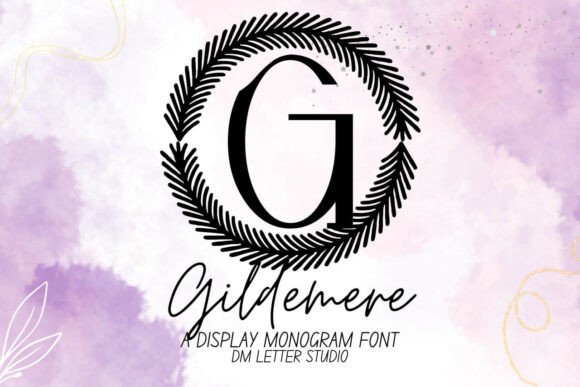
Meet Gildemere, the Monogram Font that Elevates Initials to Luxurious Emblems
Are you a designer or crafter looking for a font that can add a touch of classic luxury to your projects? Look no further than Gildemere, the monogram font that turns simple initials into polished, boutique-ready emblems. With its smooth and confident strokes, generous counters, and elegant proportions, Gildemere is the perfect choice for creating stunning wedding suites, boutique logos, keepsake gifts, foil seals, and premium packaging.
The Characteristics of Gildemere Monogram Font
Gildemere Monogram Font is designed to make a statement with its unique blend of classic and modern elements. The strokes feel smooth and confident, while the generous counters keep tiny tags readable. This makes it ideal for use in a variety of applications, from small-scale projects like jewelry cards to large-scale displays like entry signs.
One of the standout features of Gildemere is its ability to pair beautifully with refined serifs and quiet humanist sans fonts. This means that you can use Gildemere to create elegant and cohesive layouts without having to spend hours searching for the perfect font combination.
Where Gildemere Shines
Gildemere Monogram Font is incredibly versatile, and can be used in a variety of contexts to create stunning visual elements. Here are just a few examples of where Gildemere shines:
- Logos and Seals: Use Gildemere to create professional-looking logos and seals for businesses, events, or personal projects. The font’s smooth strokes and elegant proportions make it perfect for creating polished emblems that command attention.
- Wedding Suites: Add a touch of luxury to your wedding stationery with Gildemere. The font pairs beautifully with refined serifs and quiet humanist sans fonts, making it easy to create cohesive and elegant layouts.
- Boutique Logos: If you’re a boutique owner or designer, Gildemere is the perfect choice for creating a logo that reflects your brand’s high-end aesthetic.
- Keepisake Gifts: Use Gildemere to create personalized keepsake gifts, such as monogrammed towels, blankets, or jewelry.
- Foil Seals and Premium Packaging: Add a touch of luxury to your packaging with Gildemere. The font’s smooth strokes and elegant proportions make it perfect for creating stunning foil seals and premium packaging.
Tips for Using Gildemere Monogram Font
Here are a few tips for getting the most out of Gildemere Monogram Font:
- Experiment with Different Initial Combinations: Gildemere allows you to set single, double, or triple initials, making it perfect for creating unique and personalized visual elements.
- Frame Your Initials: Use laurel rings, oval borders, or fine rules to frame your initials and add an extra touch of elegance to your designs.
- Play with Scale: Gildemere scales smoothly from small to large sizes, making it perfect for use in a variety of applications, from jewelry cards to entry displays.
Why Choose Gildemere Monogram Font?
So why choose Gildemere Monogram Font over other fonts on the market? Here are just a few reasons:
- Unique and Elegant Design: Gildemere’s smooth strokes and elegant proportions make it stand out from other monogram fonts on the market.
- Versatility: Gildemere can be used in a variety of contexts, from logos and seals to wedding stationery and premium packaging.
- Easy to Pair: Gildemere pairs beautifully with refined serifs and quiet humanist sans fonts, making it easy to create cohesive and elegant layouts.
In conclusion, Gildemere Monogram Font is a luxurious and versatile font that is perfect for designers and crafters looking to add a touch of classic elegance to their projects. With its smooth strokes, generous counters, and elegant proportions, Gildemere is the perfect choice for creating stunning visual elements that command attention. Whether you’re creating wedding stationery, boutique logos, or premium packaging, Gildemere is sure to impress.